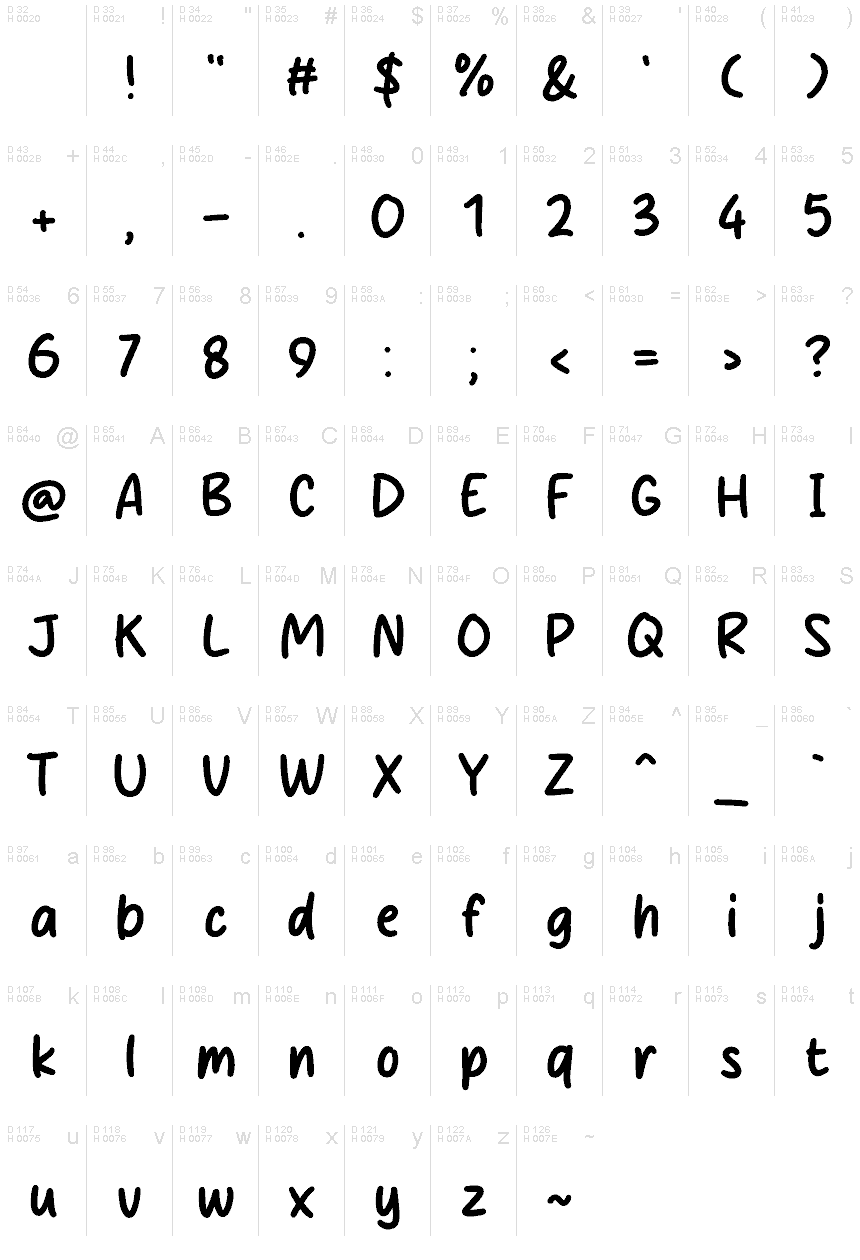
Cream Bake
Cream Bake font by MJType is a free handwritten font with organic, friendly, and approachable characteristics. It combines a modern aesthetic with casual elegance, making it ideal for users who want to achieve natural and innocent visual impact.
Use Cream Bake in blogs, social media feeds, children-related projects, album covers. headings and subheadings borders. other options are business cards and resumes amongst many other options.